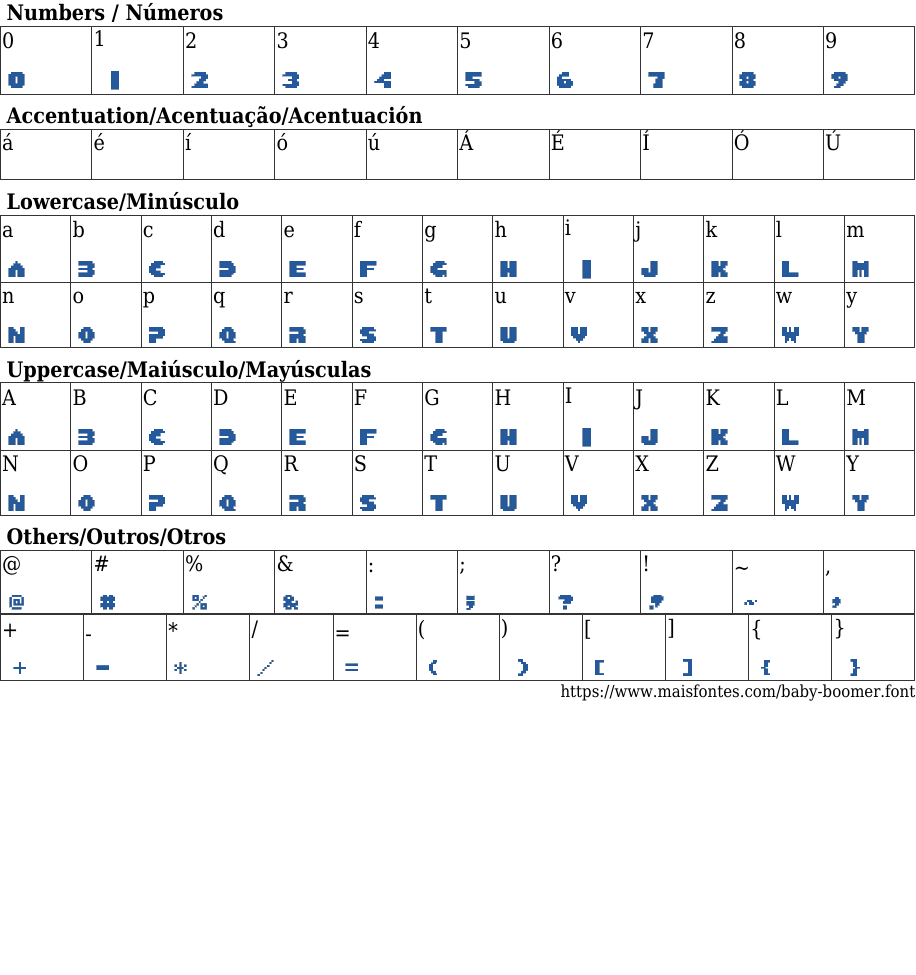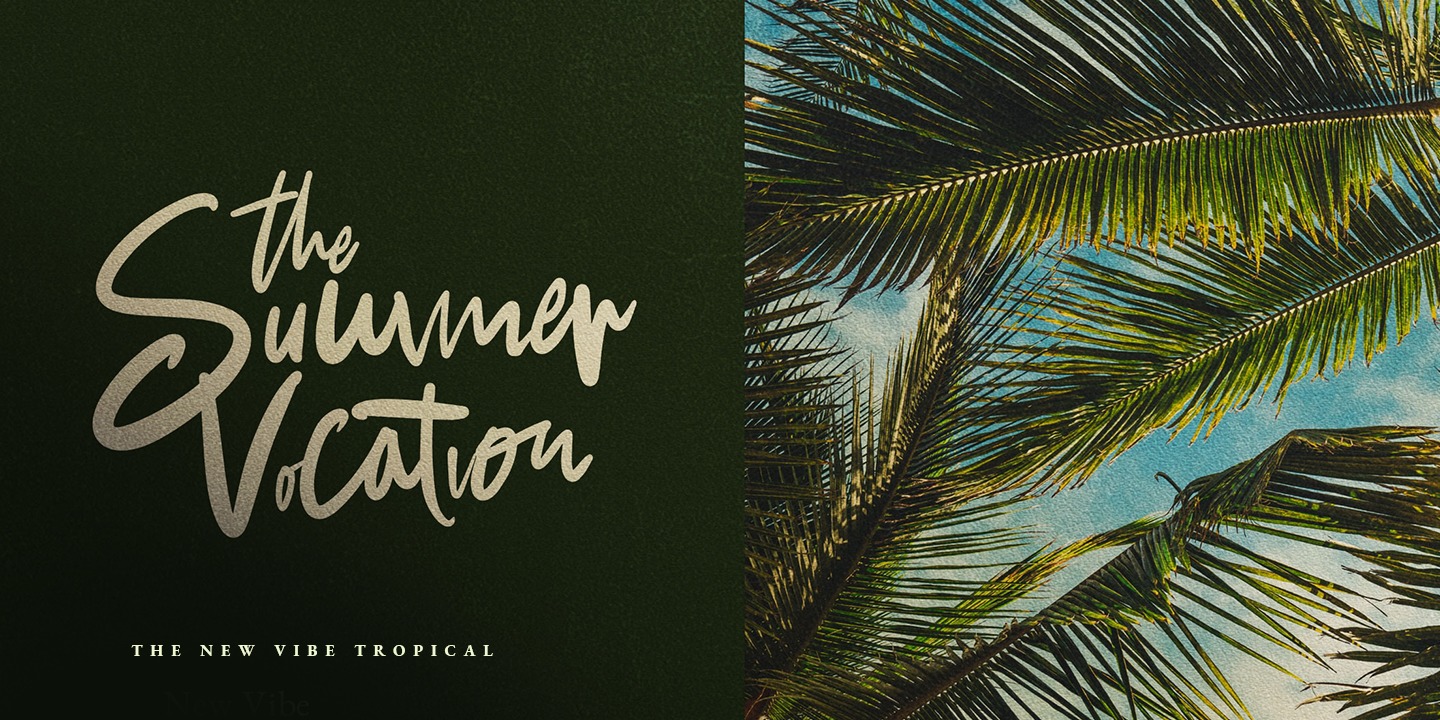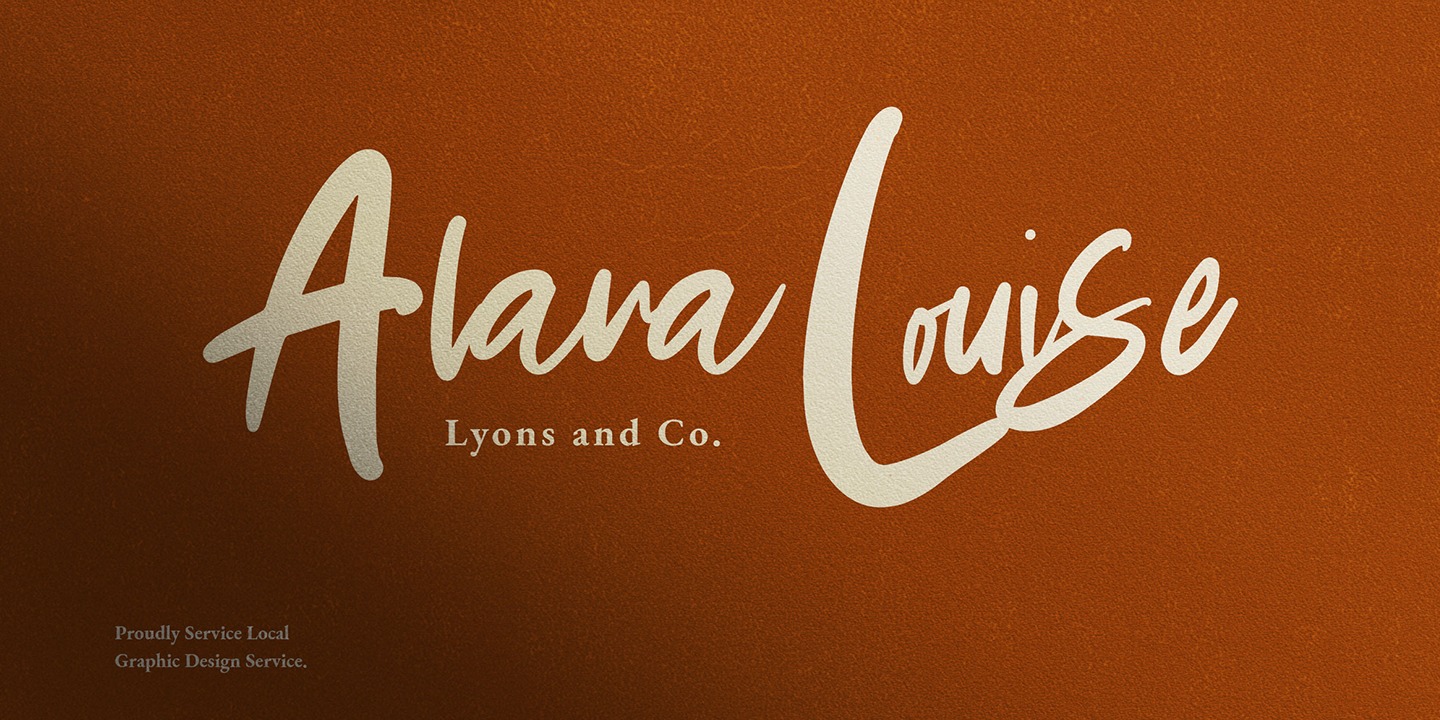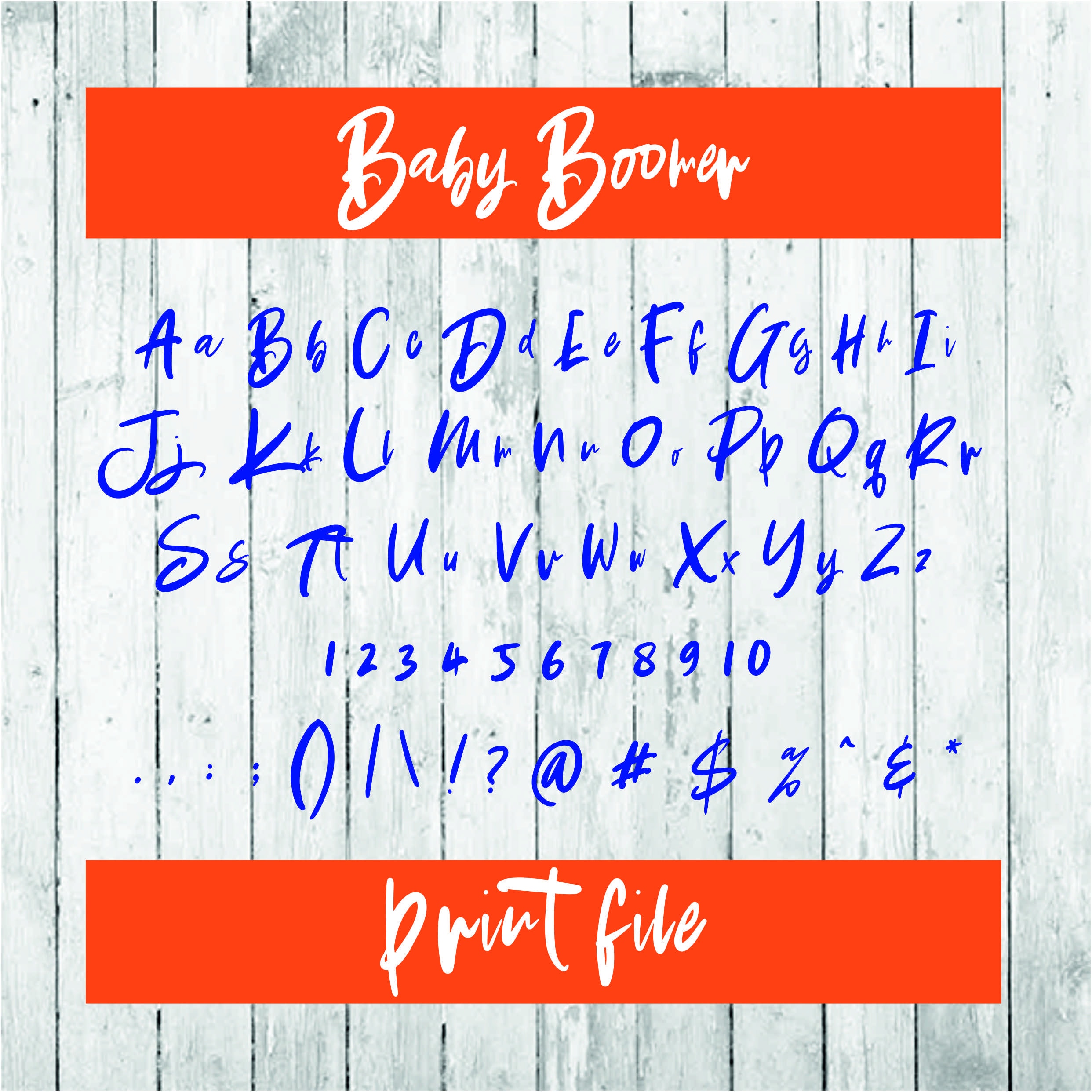
Baby Boomer Font . The baby boomer font contains 110 beautifully designed characters. Baby boomer font | dafont.com english français español deutsch italiano português. ️ customize your own preview on ffonts.net to make sure it`s the right one for your designs. Download free baby boomer font, view its character map and. So beautiful on invitation like greeting cards,. Baby boomer font download is available free from fontget. Unicodeunicode 2.0 and onwards semantics, unicode bmp only. So beautiful on invitation like greeting cards, branding. Baby boomer is a bitmap type font that can be used on any device such as pc, mac,. Baby boomer font | dafont.com english français español deutsch italiano português. Baby boomer is a new fresh and modern script with a calligraphy style and a dancing baseline.
The baby boomer font contains 110 beautifully designed characters. Baby boomer font download is available free from fontget. Baby boomer font | dafont.com english français español deutsch italiano português. ️ customize your own preview on ffonts.net to make sure it`s the right one for your designs. So beautiful on invitation like greeting cards, branding. Baby boomer is a new fresh and modern script with a calligraphy style and a dancing baseline. So beautiful on invitation like greeting cards,. Download free baby boomer font, view its character map and. Unicodeunicode 2.0 and onwards semantics, unicode bmp only. Baby boomer font | dafont.com english français español deutsch italiano português.
Baby Boomer Font Baby boomer font download is available free from fontget. Download free baby boomer font, view its character map and. Baby boomer font | dafont.com english français español deutsch italiano português. So beautiful on invitation like greeting cards,. ️ customize your own preview on ffonts.net to make sure it`s the right one for your designs. The baby boomer font contains 110 beautifully designed characters. So beautiful on invitation like greeting cards, branding. Baby boomer is a bitmap type font that can be used on any device such as pc, mac,. Baby boomer font download is available free from fontget. Unicodeunicode 2.0 and onwards semantics, unicode bmp only. Baby boomer is a new fresh and modern script with a calligraphy style and a dancing baseline. Baby boomer font | dafont.com english français español deutsch italiano português.
Baby Boomer Free Font Download MaisFontes Baby Boomer Font Unicodeunicode 2.0 and onwards semantics, unicode bmp only. Baby boomer font download is available free from fontget. So beautiful on invitation like greeting cards,. ️ customize your own preview on ffonts.net to make sure it`s the right one for your designs. Baby boomer is a bitmap type font that can be used on any device such as pc, mac,. Baby. Baby Boomer Font.
Baby Boomer Font The baby boomer font contains 110 beautifully designed characters. Baby boomer font download is available free from fontget. So beautiful on invitation like greeting cards, branding. Baby boomer is a bitmap type font that can be used on any device such as pc, mac,. Baby boomer font | dafont.com english français español deutsch italiano português. Baby boomer is a new. Baby Boomer Font.
Baby Boomer Font Alphabet Letters Svg Magic Cutting Font Etsy Baby Boomer Font Baby boomer font download is available free from fontget. ️ customize your own preview on ffonts.net to make sure it`s the right one for your designs. Unicodeunicode 2.0 and onwards semantics, unicode bmp only. The baby boomer font contains 110 beautifully designed characters. Baby boomer font | dafont.com english français español deutsch italiano português. Baby boomer is a bitmap type. Baby Boomer Font.
Baby Boomer Font font & Desktop MyFonts Baby Boomer Font So beautiful on invitation like greeting cards, branding. Download free baby boomer font, view its character map and. Baby boomer font download is available free from fontget. Baby boomer font | dafont.com english français español deutsch italiano português. Baby boomer font | dafont.com english français español deutsch italiano português. Baby boomer is a new fresh and modern script with a. Baby Boomer Font.
Baby Boomer Free Font Dirtyline Studio Baby Boomer Font Baby boomer font | dafont.com english français español deutsch italiano português. Baby boomer is a new fresh and modern script with a calligraphy style and a dancing baseline. Baby boomer font download is available free from fontget. ️ customize your own preview on ffonts.net to make sure it`s the right one for your designs. Unicodeunicode 2.0 and onwards semantics, unicode. Baby Boomer Font.
Baby Boomer font Baby Boomer Font Baby boomer is a new fresh and modern script with a calligraphy style and a dancing baseline. Unicodeunicode 2.0 and onwards semantics, unicode bmp only. Baby boomer font download is available free from fontget. ️ customize your own preview on ffonts.net to make sure it`s the right one for your designs. So beautiful on invitation like greeting cards,. Baby boomer. Baby Boomer Font.
Download free Baby Boomer Regular font Baby_Boomer.ttf Baby Boomer Font Download free baby boomer font, view its character map and. Baby boomer font download is available free from fontget. Baby boomer font | dafont.com english français español deutsch italiano português. Unicodeunicode 2.0 and onwards semantics, unicode bmp only. So beautiful on invitation like greeting cards, branding. Baby boomer is a new fresh and modern script with a calligraphy style and. Baby Boomer Font.
Baby Boomer Regular font Baby Boomer Font So beautiful on invitation like greeting cards, branding. So beautiful on invitation like greeting cards,. ️ customize your own preview on ffonts.net to make sure it`s the right one for your designs. Baby boomer font | dafont.com english français español deutsch italiano português. Baby boomer is a new fresh and modern script with a calligraphy style and a dancing baseline.. Baby Boomer Font.
Baby Boomer Free Font Dirtyline Studio Baby Boomer Font Baby boomer is a bitmap type font that can be used on any device such as pc, mac,. Baby boomer is a new fresh and modern script with a calligraphy style and a dancing baseline. Baby boomer font | dafont.com english français español deutsch italiano português. Baby boomer font download is available free from fontget. So beautiful on invitation like. Baby Boomer Font.